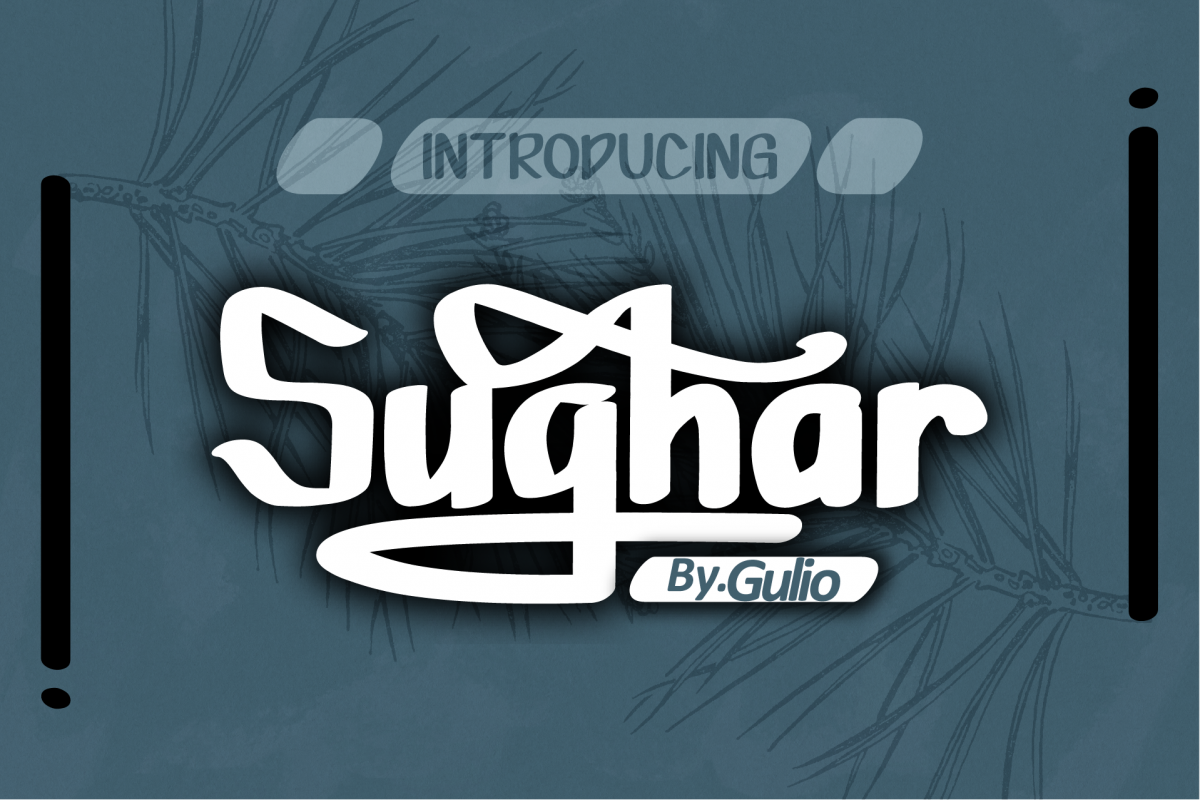
Sughar BRUSH Font
Sughar is a Modern bold. Sughar is a logotype font with smooth curves so this font is great for Branding, Logo Design, Lettering,Logotype, Clothing, Poster, magazine, cover book, media sosial diary and other design project.
• Opentype Features (Alternate, Swash)